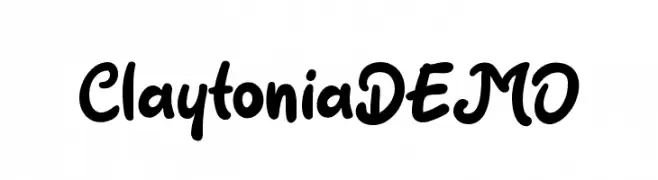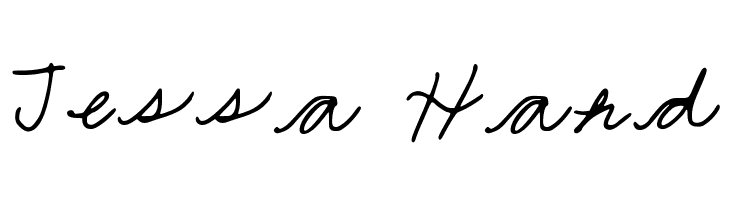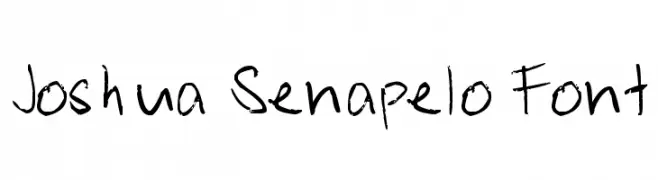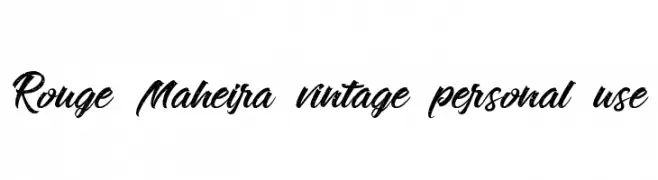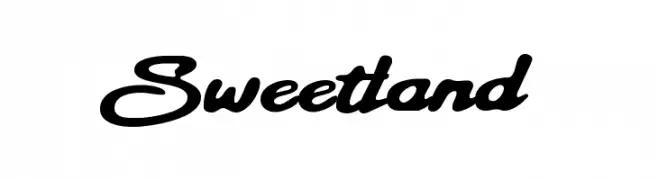
A flowing, cursive handwritten font with elegant, connected characters.
A playful, casual handwritten font with irregular strokes and a lively feel.
An elegant script font with flowing, cursive letterforms and high contrast strokes.
A bold, italic script font with a flowing, handwritten style.
A bold, geometric font with a futuristic and industrial style.
A playful, bold script font with a handwritten feel and rounded, connected characters.
A bold, cursive font with smooth, connected lines and a handwritten feel.
A playful and elegant handwritten font with smooth, connected letters.
A bold, vintage brush script with a distressed texture.
An elegant, flowing script font with a sophisticated cursive style.